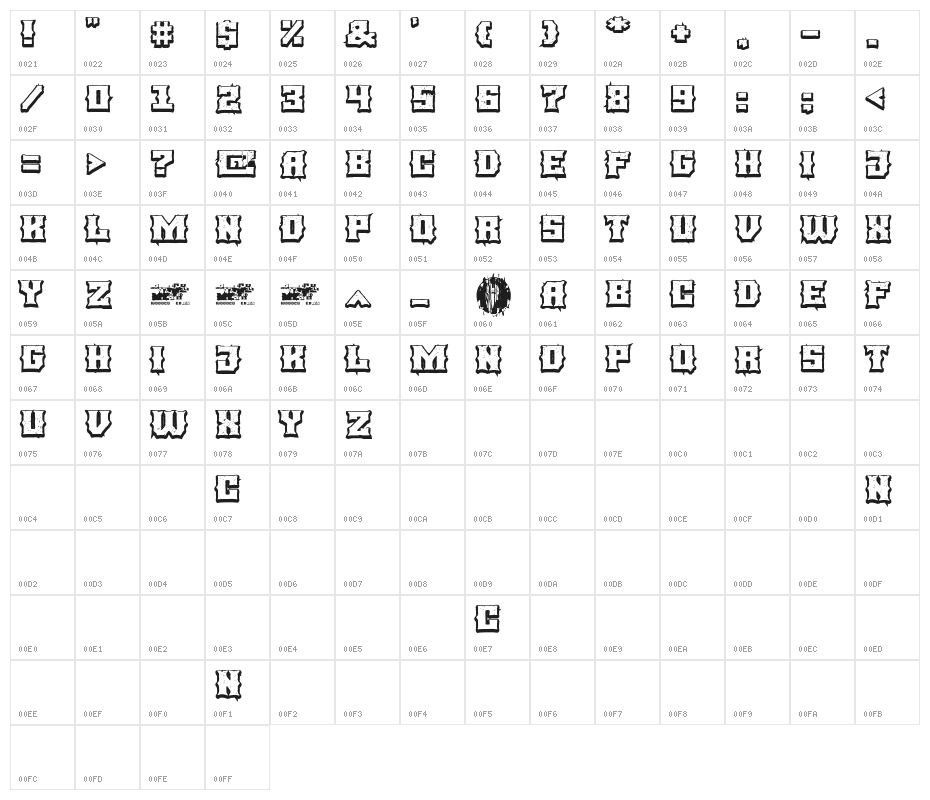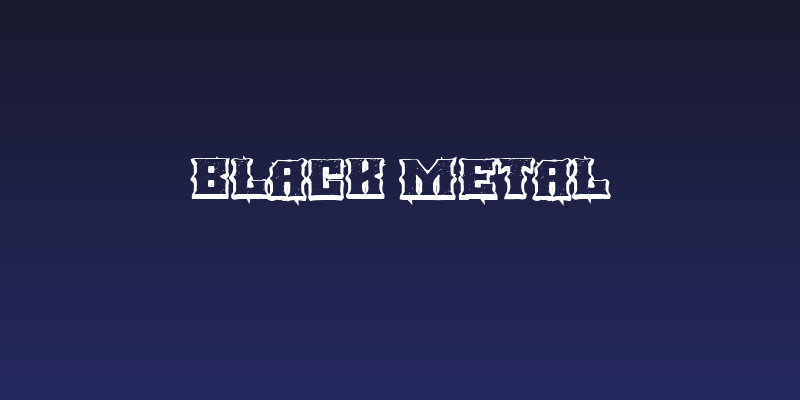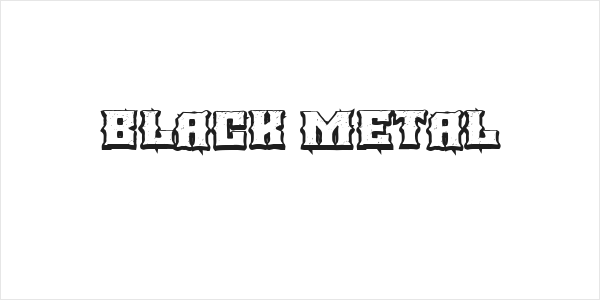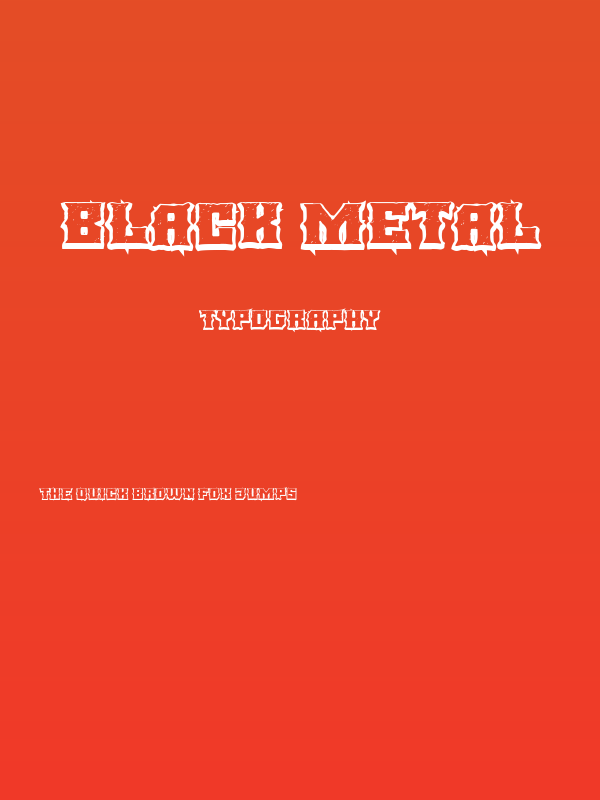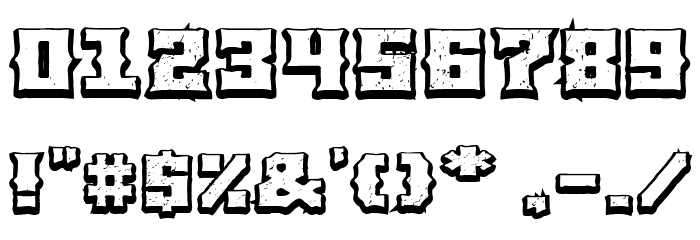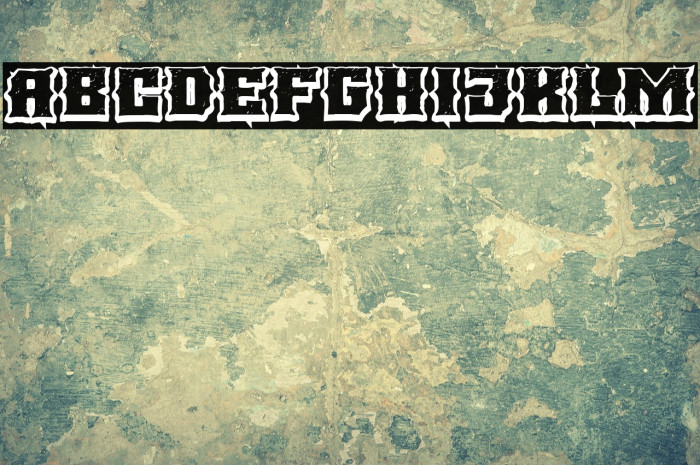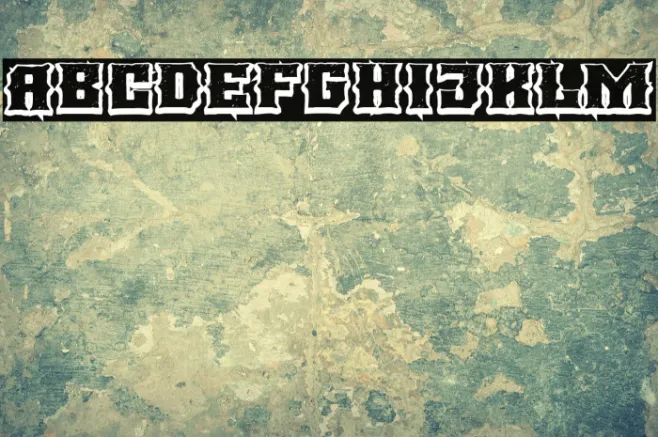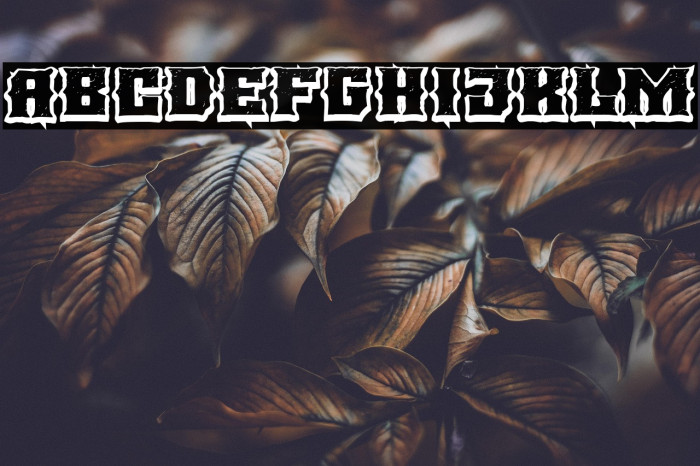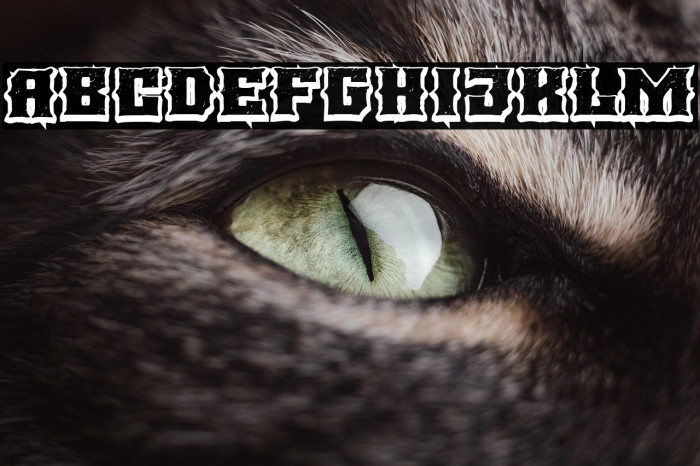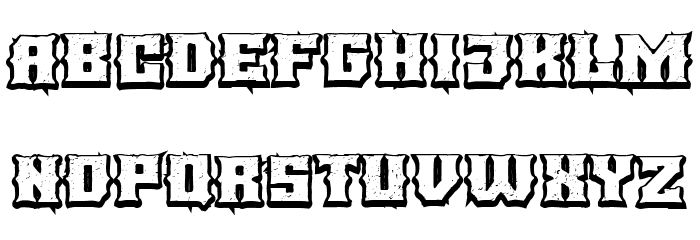
BLACK METAL Font
BLACK METAL Description
This font exudes a bold and aggressive style, reminiscent of heavy metal and rock music aesthetics. The characters are sharply angular with jagged edges, giving them a rugged and intense appearance. The thick strokes and high contrast between the black outlines and white interiors create a striking visual impact. Each letter is uniquely designed with a distressed texture, adding to the raw and edgy feel. The font maintains a consistent width and spacing, ensuring readability while retaining its distinctive character. It is perfect for projects that require a strong, rebellious, and energetic vibe.